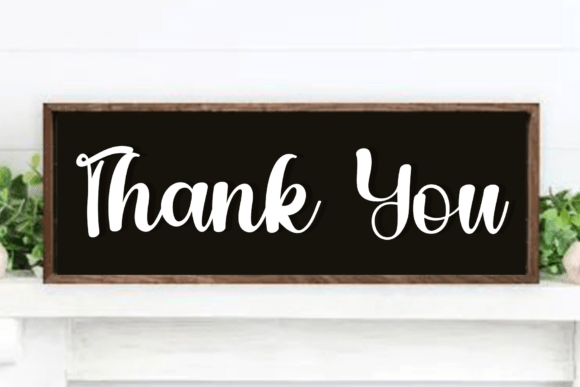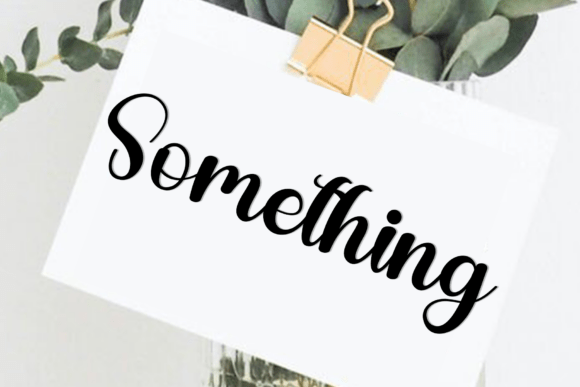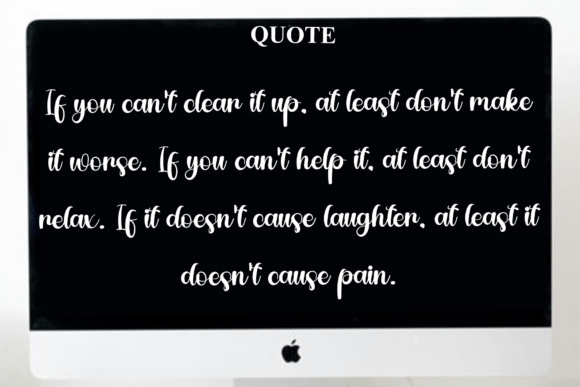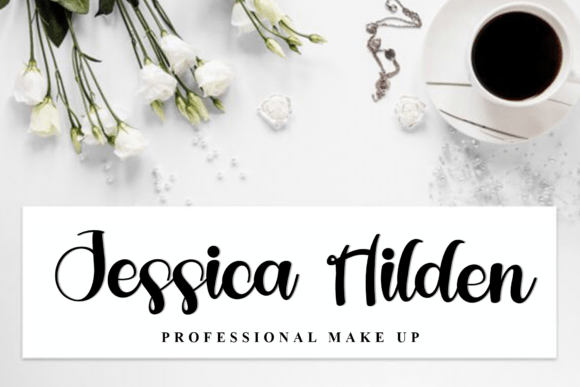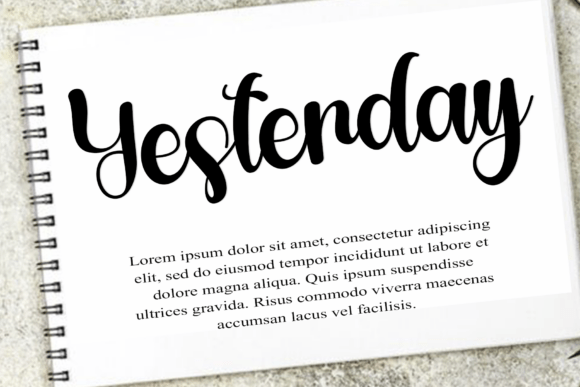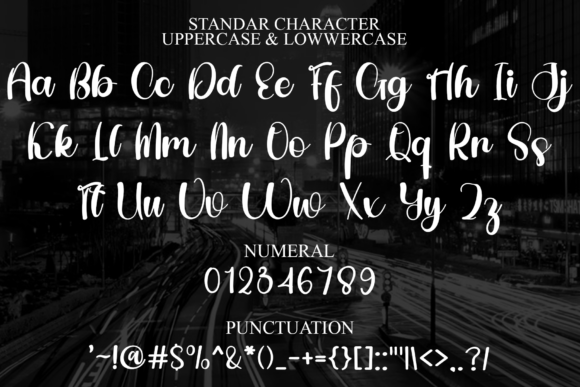
Introducing Green Cucumber Font: The Perfect Blend of Organic Energy and Professional Polish
In the world of typography, a well-crafted font can elevate a brand’s identity and make it stand out in a crowded market. For designers and crafters looking for a unique and expressive typeface, Green Cucumber Font is an excellent choice. This bold and modern handmade font strikes the perfect balance between organic energy and professional polish, making it ideal for a variety of creative projects.
What Makes Green Cucumber Font Special?
Green Cucumber Font boasts heavy, confident strokes with a natural, slanted axis and fluid connections. Its thick stems and smooth, sweeping curves give the text a substantial visual weight and a sense of artisanal craftsmanship. This font’s distinctive features make it perfect for artisanal food packaging, farm-to-table restaurant identities, organic wellness branding, and vibrant editorial headers.
Key Characteristics of Green Cucumber Font
- Bold and Expressive: Green Cucumber Font is designed to make a statement. Its bold strokes and confident lines make it perfect for headlines, titles, and packaging labels.
- Organic Energy: The font’s natural, slanted axis and fluid connections give it an organic feel that’s reminiscent of handcrafted products.
- Professional Polish: Despite its organic feel, Green Cucumber Font has a professional polish that makes it suitable for a wide range of applications, from branding to editorial design.
- Artisanal Craftsmanship: The font’s thick stems and smooth curves evoke a sense of artisanal craftsmanship, making it perfect for brands that value handmade or locally sourced products.
Use Cases for Green Cucumber Font
Green Cucumber Font is a versatile typeface that can be used in a variety of creative projects. Here are some use cases where this font truly shines:
- Artisanal Food Packaging: Green Cucumber Font is perfect for labeling artisanal food products, such as jams, honey, and baked goods.
- Farm-to-Table Restaurant Identities: This font’s organic feel and professional polish make it an excellent choice for restaurant branding, menus, and signage.
- Organic Wellness Branding: Green Cucumber Font’s natural, earthy vibe makes it suitable for branding and marketing materials in the organic wellness industry.
- Vibrant Editorial Headers: This font’s bold and expressive nature makes it perfect for use in editorial headers, titles, and subtitles.
Why Choose Green Cucumber Font?
With so many fonts available, why choose Green Cucumber Font? Here are a few reasons why designers and crafters love this typeface:
- Unique and Expressive: Green Cucumber Font is a one-of-a-kind typeface that can help your brand stand out in a crowded market.
- Versatile: This font can be used in a wide range of creative projects, from packaging to editorial design.
- Easy to Read: Despite its bold nature, Green Cucumber Font is easy to read, making it perfect for use in body text and headlines.
Green Cucumber Font is a bold and expressive modern handmade font that’s perfect for designers and crafters looking for a unique and versatile typeface. Its organic energy and professional polish make it suitable for a wide range of creative projects, from artisanal food packaging to vibrant editorial headers. With its thick stems, smooth curves, and confident strokes, Green Cucumber Font is sure to elevate your brand’s identity and make it stand out in a crowded market.